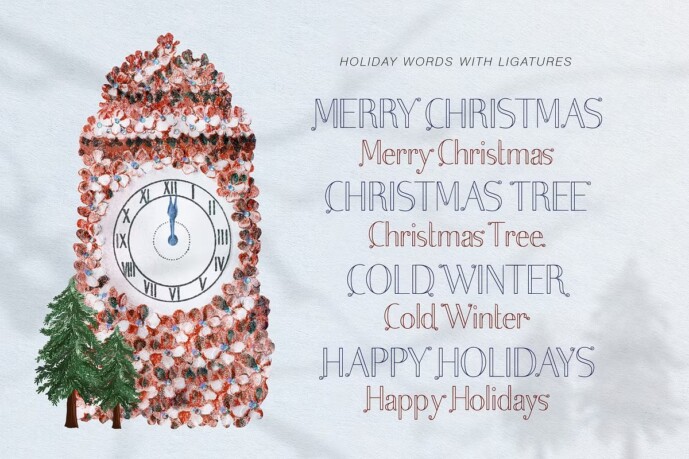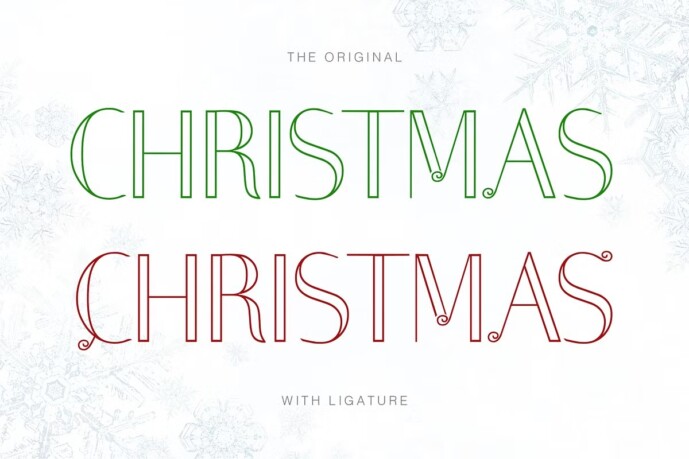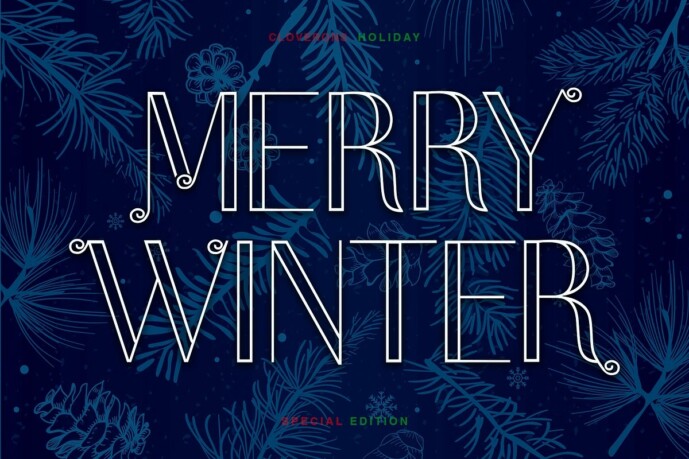
Merry Winter Font
Merry Winter Font, a new Christmas Holiday Display Sans Serif Typeface of the 21st century. It has outlined letter accents and comes with swirly ligatures I designed thoughtfully for holiday words to use for social media posts, advertising and greeting cards this Holiday Season! It’s a very versatile font that works as standalone or paired with other fonts.